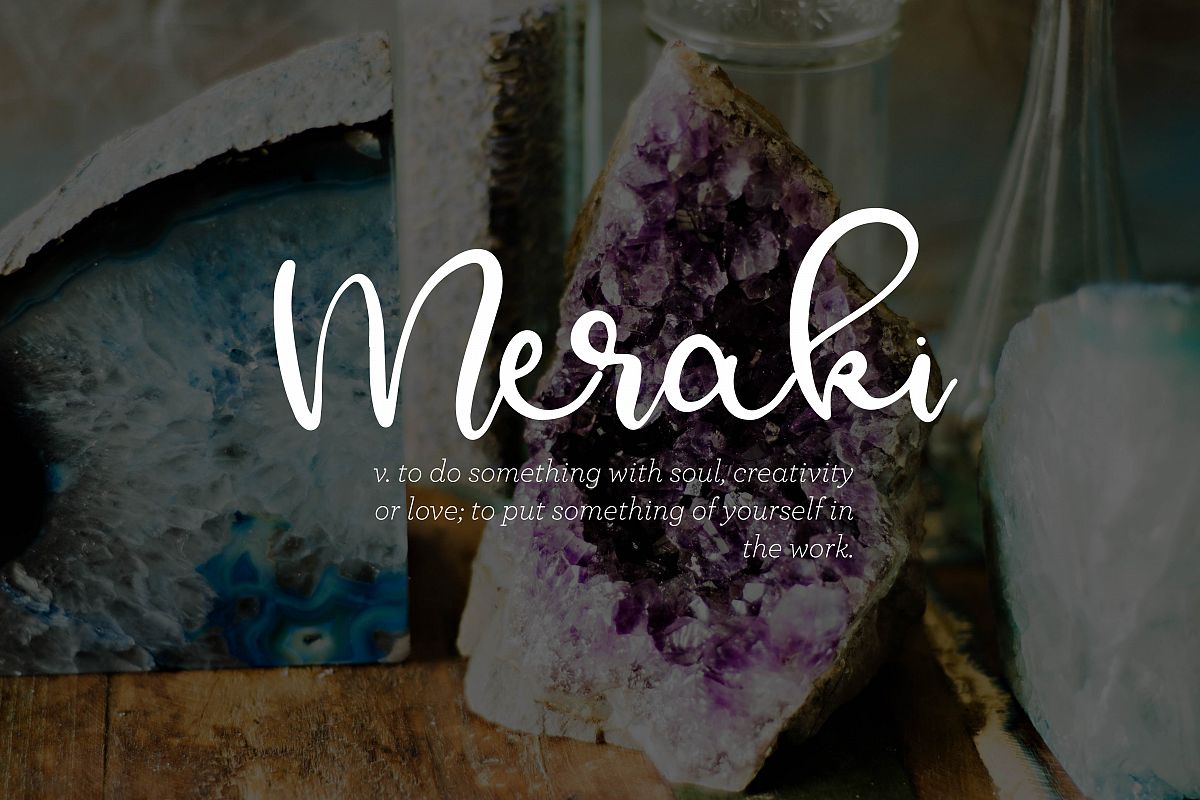
Meraki - A Flowing Script
Meraki-Regular
Meraki is a fun bouncy script perfect for adding that needed touch of customization or handlettering to your project!